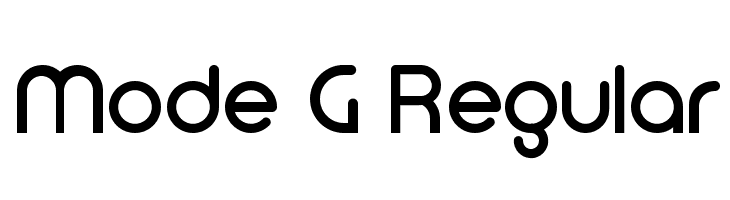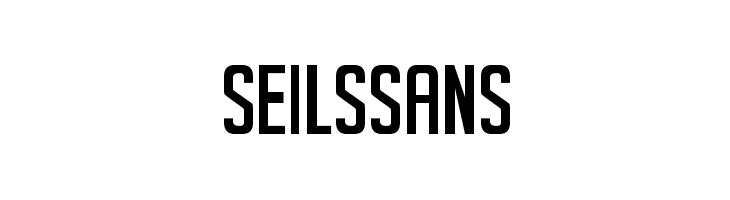
Bienvenue dans Polices Populaires — là où se rencontrent popularité et qualité. Voici les polices les plus téléchargées et utilisées cette année. Pour des choix sûrs (logos, web, social), commencez ici.
Chaque police phare se distingue par équilibre, lisibilité et polyvalence. Vous trouverez des sans‑serifs modernes, des scripts élégantes, des serifs vintage et des displays minimalistes.
A bold, rounded font with a strong, impactful design.
A bold, gothic-style font with sharp edges and tight spacing.
A tall, narrow, and modern font with clean lines and rounded edges.
A playful, hand-drawn font with dynamic strokes and an artistic flair.
A modern, semi-bold sans-serif font with clean lines and balanced proportions.
A classic serif typeface with elegant contrast and sharp serifs.
A bold, playful handwritten font with an energetic and informal style.
A playful, handwritten font with a smooth, flowing style and rounded edges.
A geometric, modern font with angular uppercase and fluid lowercase letters.
A lively, expressive script font with fluid, cursive strokes and playful loops.
A bold, italic font with sharp, angular lines and a futuristic style.
A playful, handwritten font with a casual and friendly style.
A geometric, futuristic font with sharp angles and a modular structure.
Ornate fantasy-themed pictorial font with mythical creatures.
A modern, light sans-serif font with clean lines and rounded edges.
A classic serif font with extended width and modern elegance.
A bold, retro font with a playful, hand-drawn style.
A decorative font with unique bat silhouettes for each character.
A classic serif typeface with elegant, balanced proportions and moderate contrast.
A bold, graffiti-inspired font with dynamic and angular letterforms.
A bold, slab serif font with strong geometric shapes and a robust presence.
A classic serif font with elegant strokes and refined details.
A bold, playful, and slightly italic font with rounded characters.
A spooky, decorative font with jagged edges and eerie cutouts, perfect for Halloween themes.